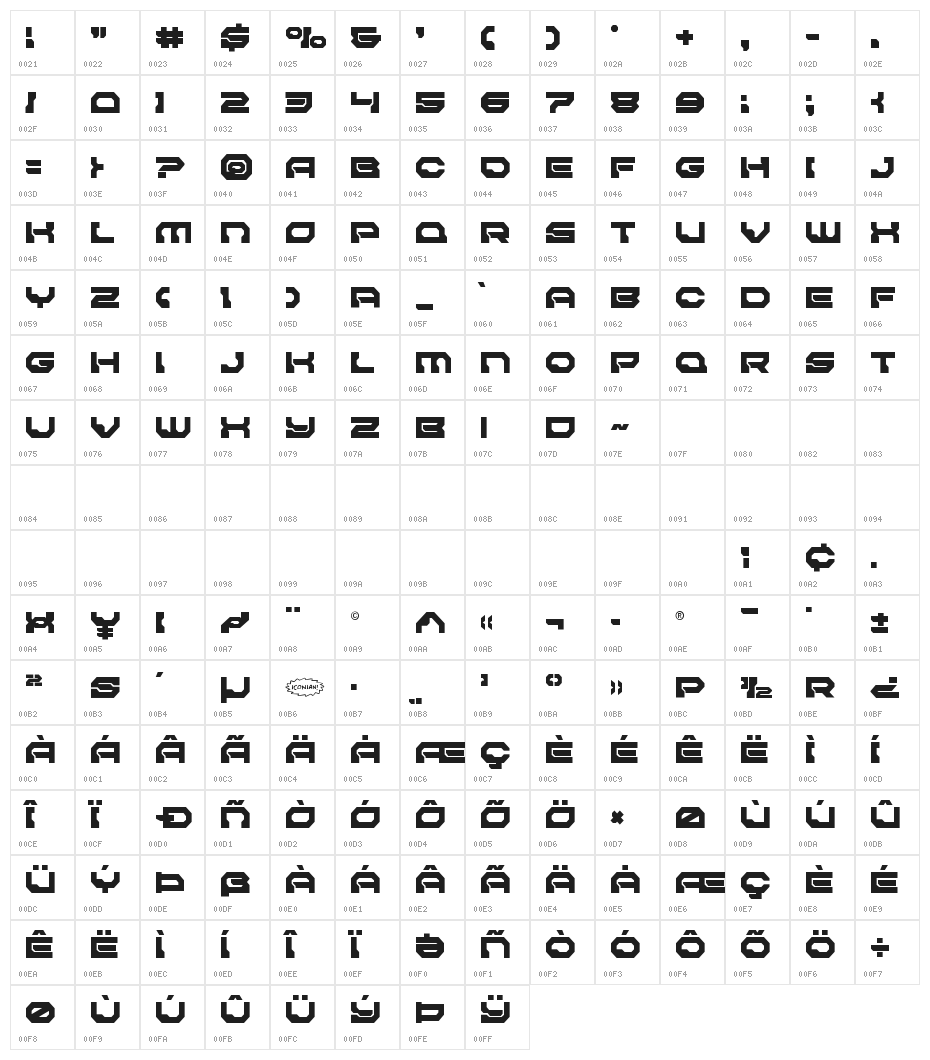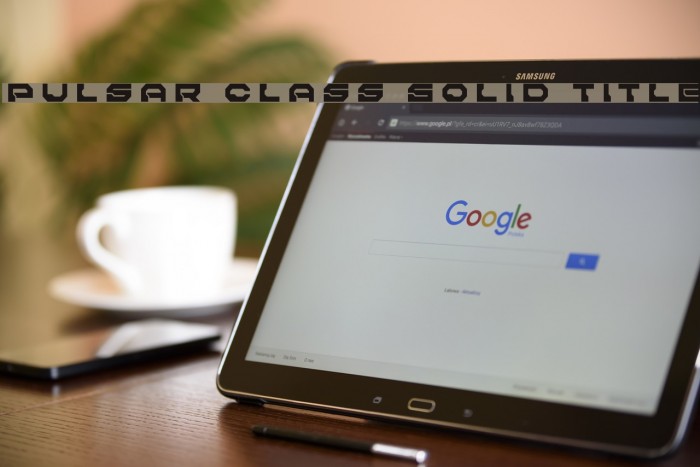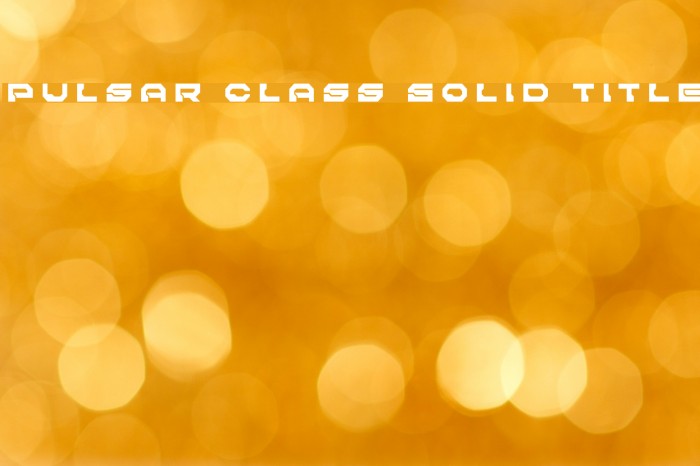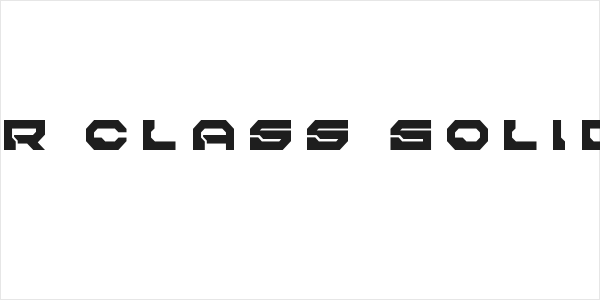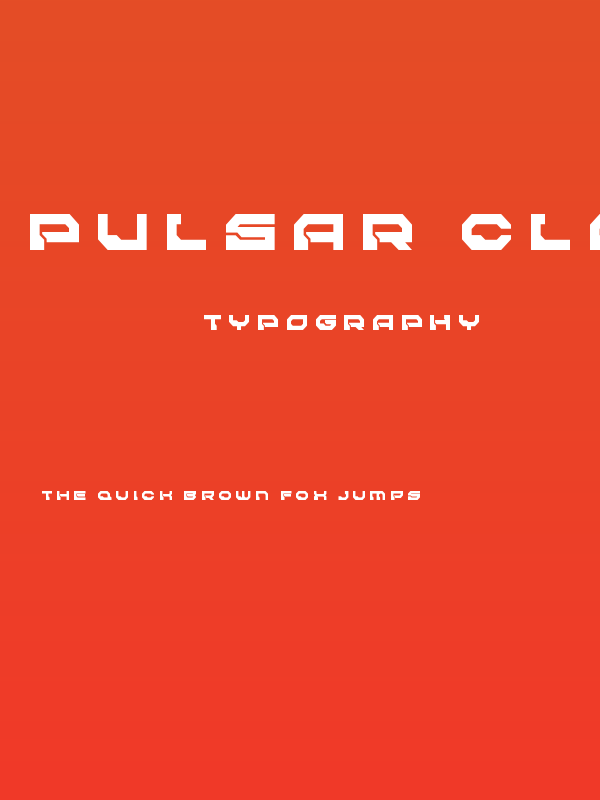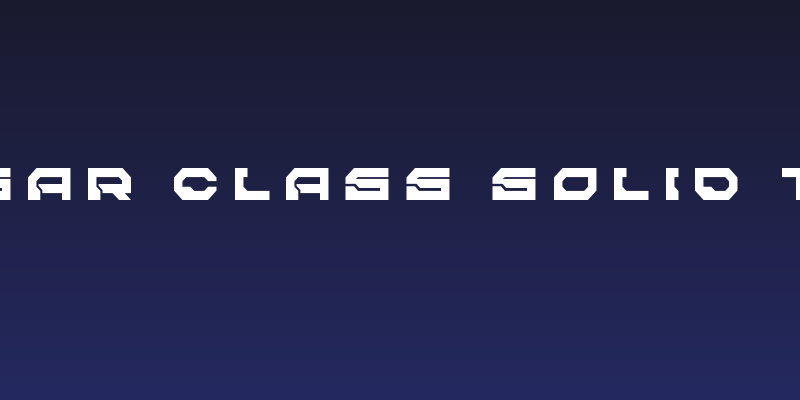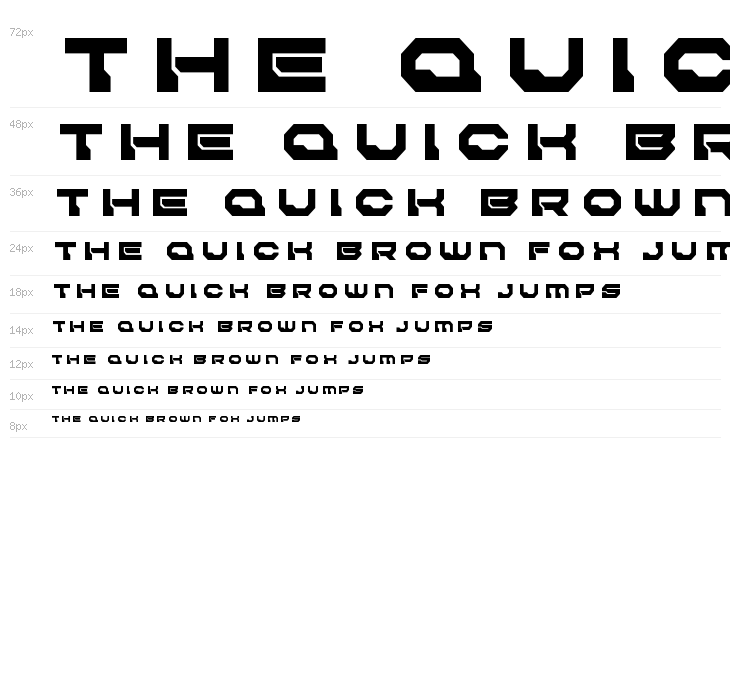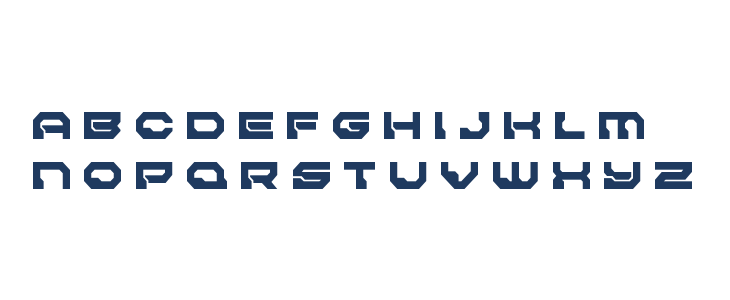
Pulsar Class Solid Title Font
Pulsar Class Solid Title Description
This font features a bold, futuristic design with geometric shapes and sharp angles. The characters are constructed with a solid, block-like appearance, giving them a strong and impactful presence. The uppercase and lowercase letters maintain a consistent style, with a unique, angular approach that suggests a modern, tech-inspired aesthetic. The numerals and special characters follow the same design principles, ensuring uniformity across all glyphs. This font is ideal for projects that require a bold and striking visual impact, such as technology branding, sci-fi themed designs, or modern digital interfaces.
| Proposed Projects | Ideal for technology branding, sci-fi themed designs, and modern digital interfaces. |